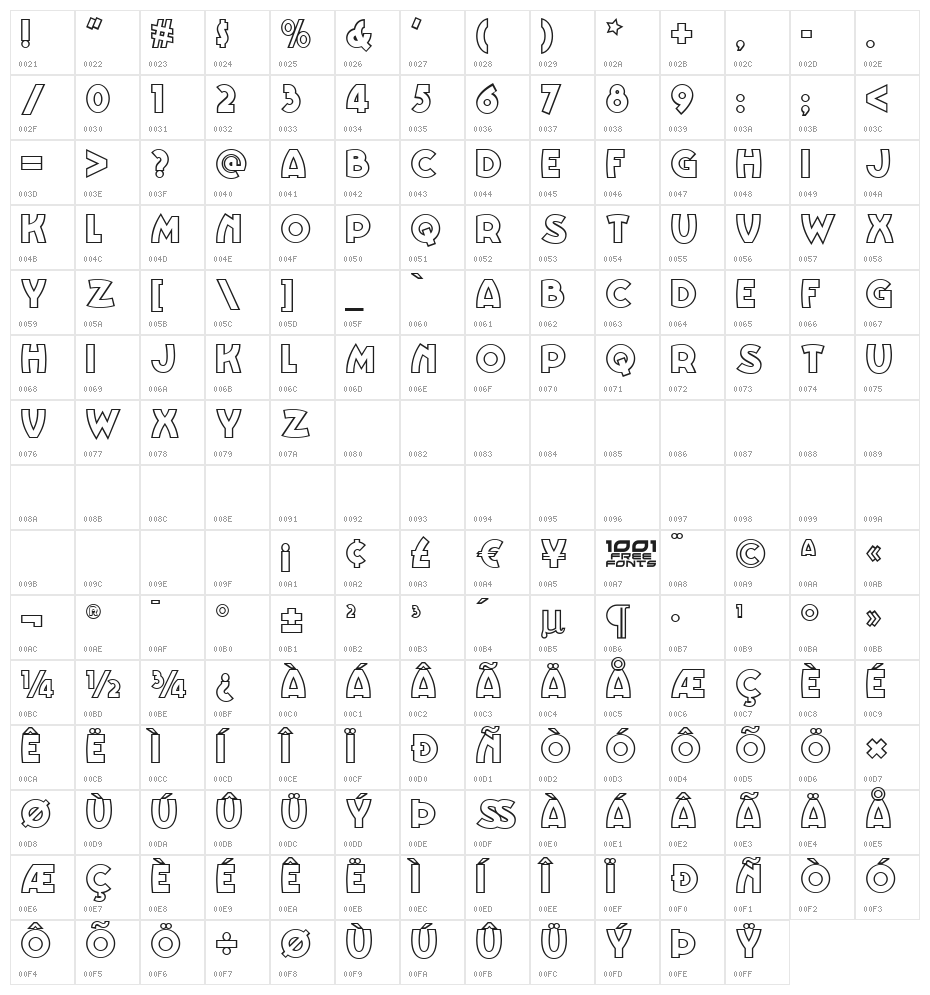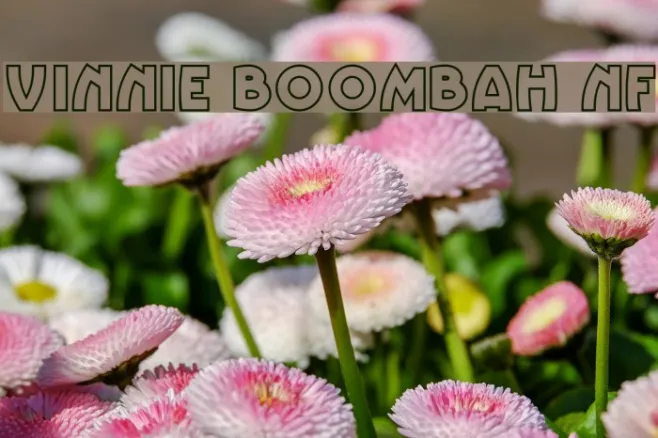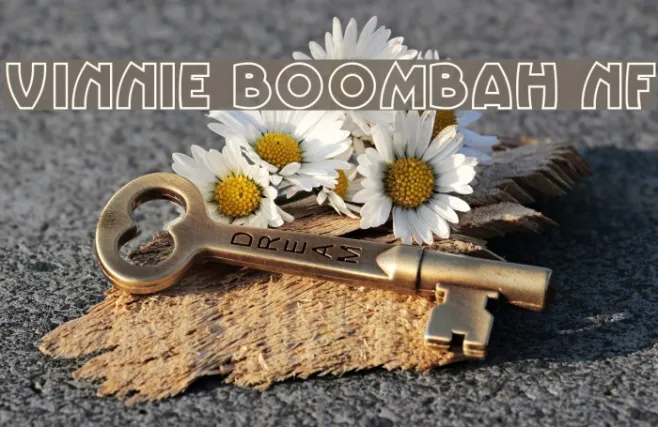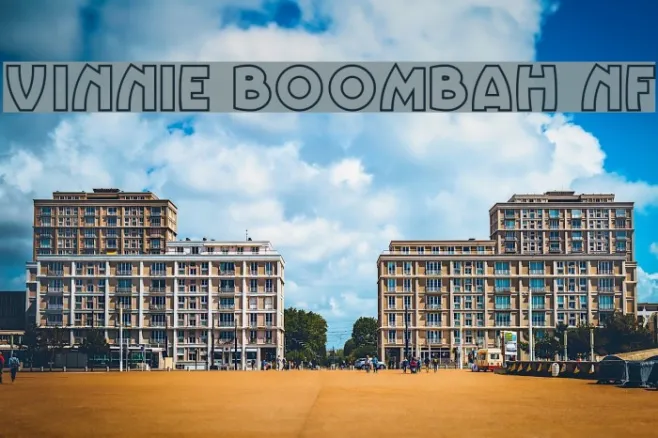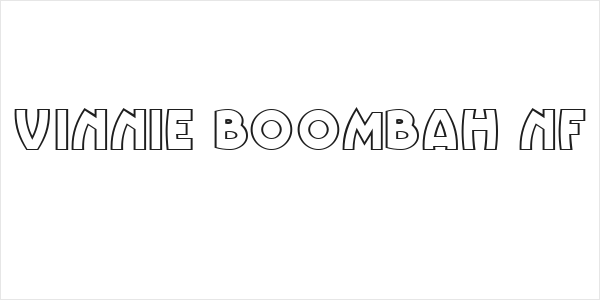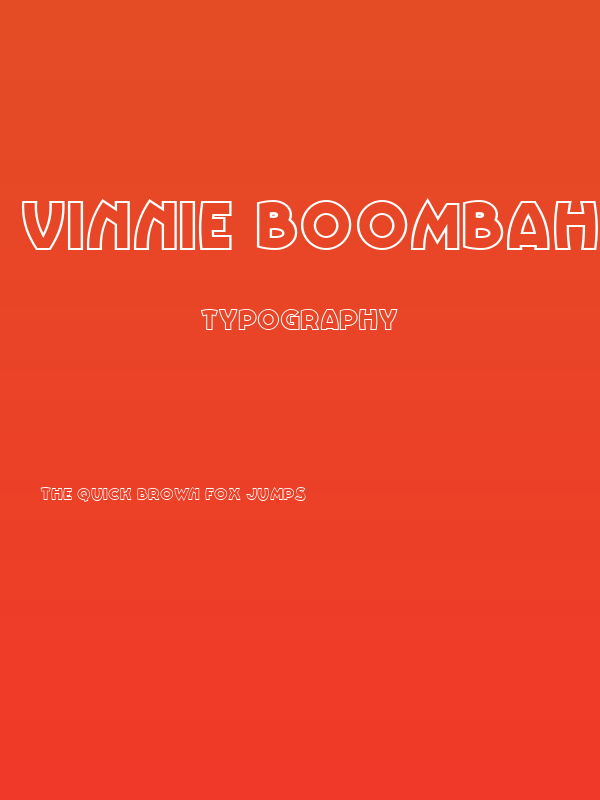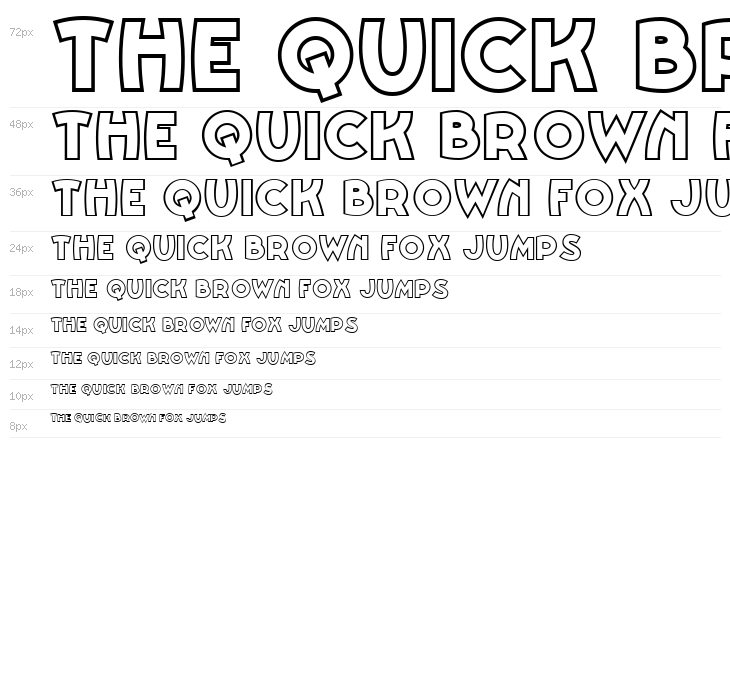
Vinnie BoomBah NF Font
Vinnie BoomBah NF Description
This font features bold, geometric letterforms with a playful and dynamic style. The characters are outlined, giving them a distinct and eye-catching appearance. The uppercase and lowercase letters maintain a consistent width, contributing to a cohesive look. The numbers and special characters are designed to match the boldness and style of the alphabet, making the font versatile for various uses. The overall design is modern and decorative, suitable for projects that require a fun and engaging typeface.
| Proposed Projects | Ideal for posters, children's books, logos, and playful branding materials. |